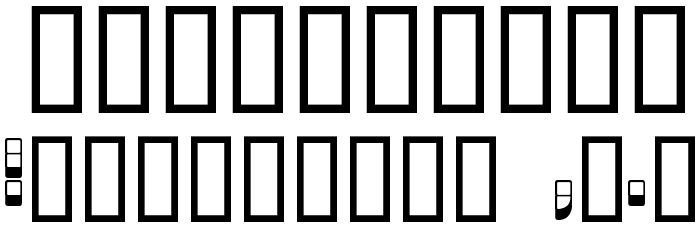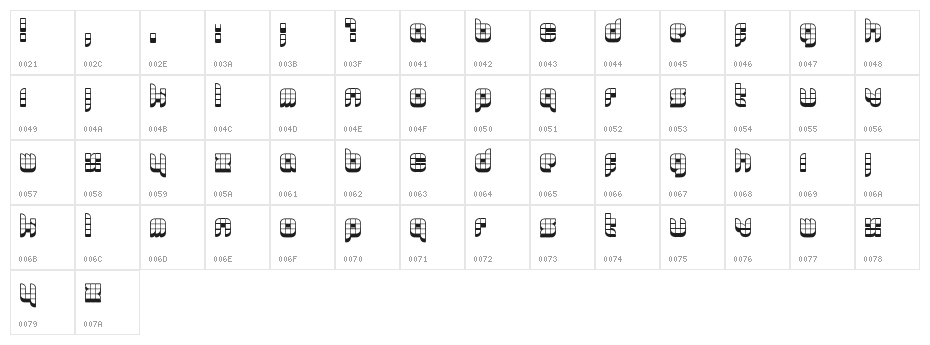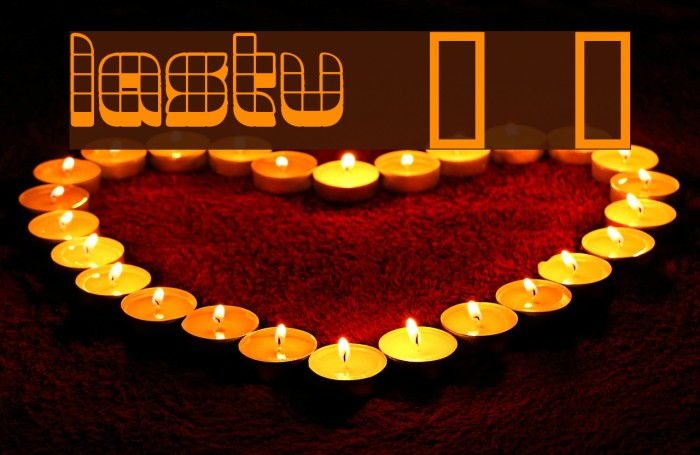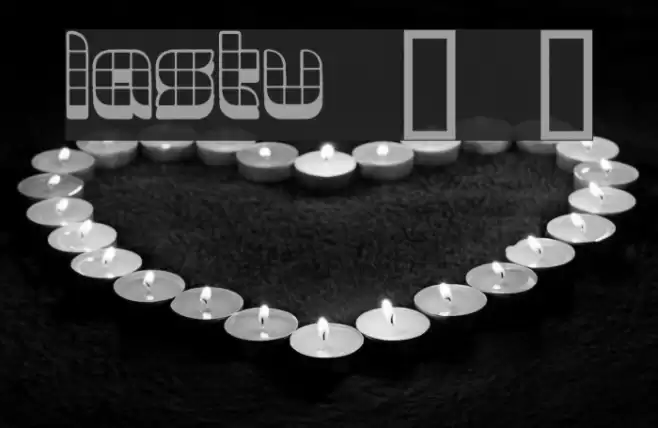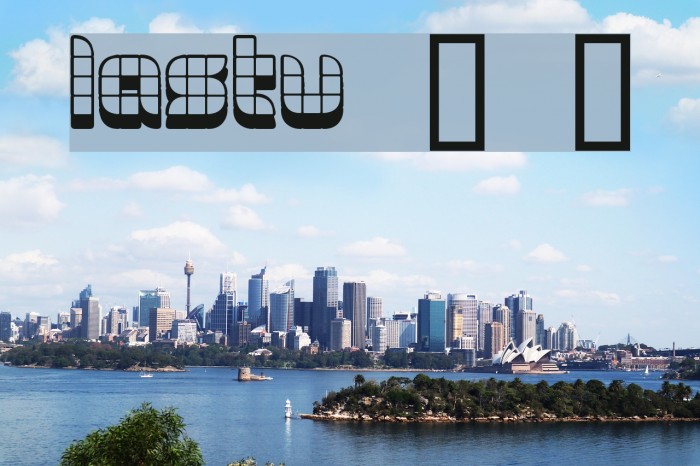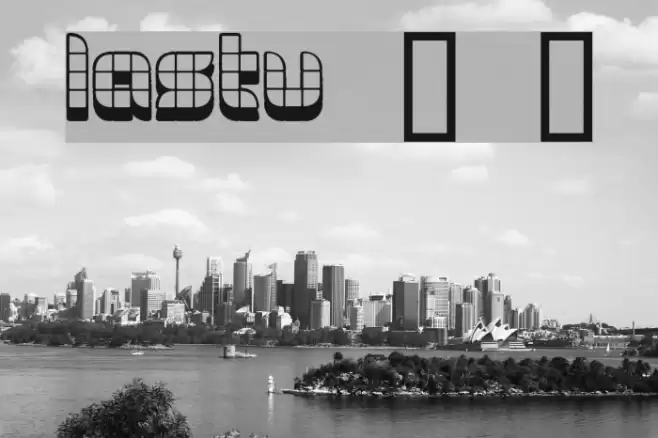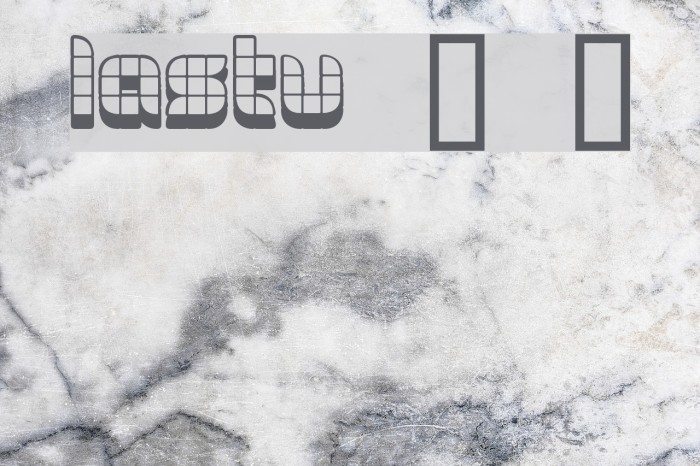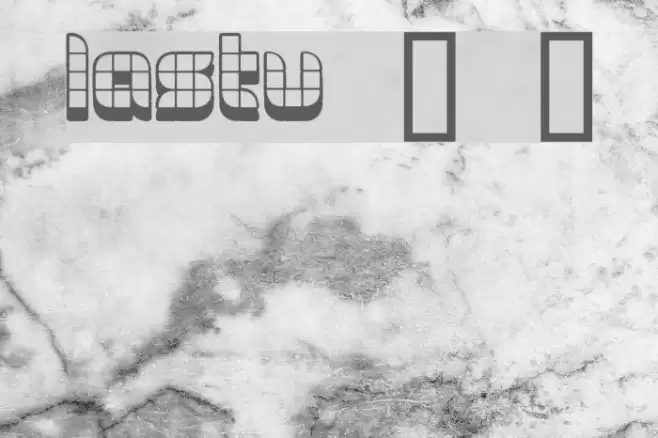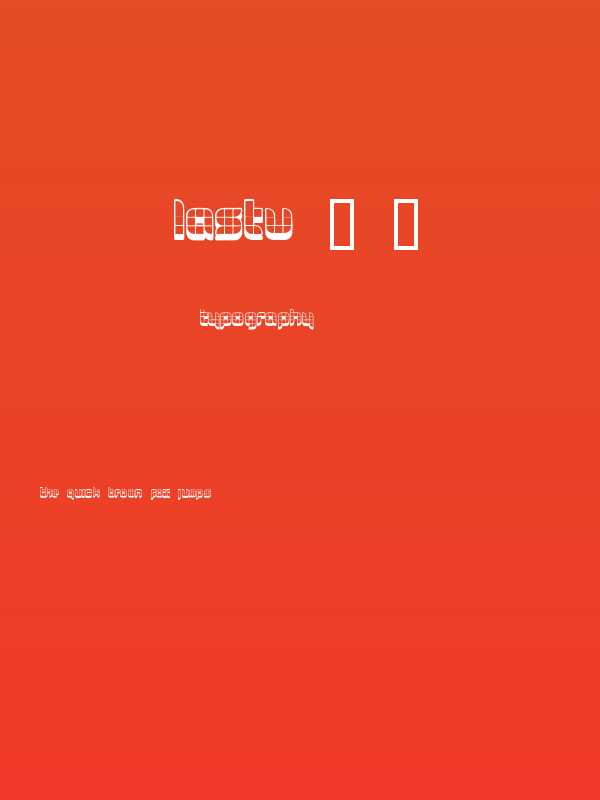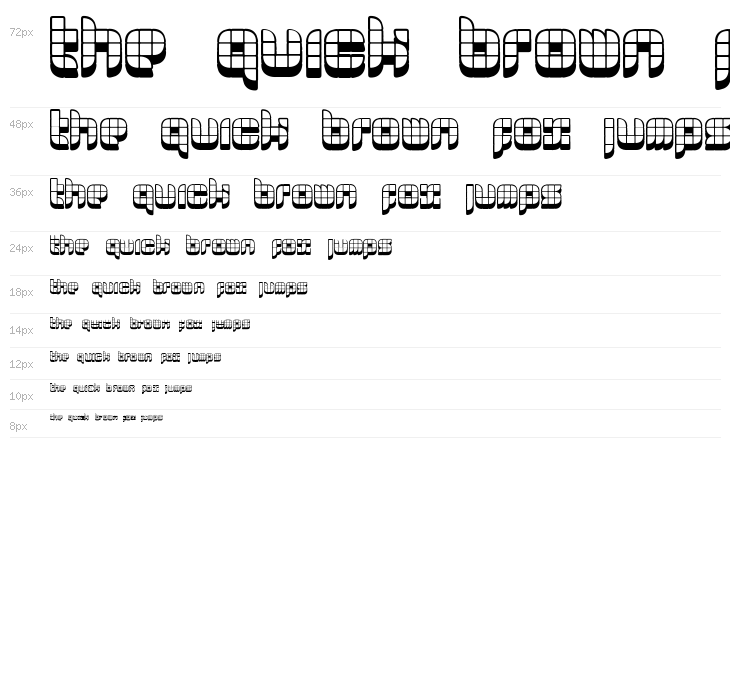
Lastu # 2 Font
Lastu # 2 Description
This font features a unique, grid-like pattern within each character, creating a futuristic and digital aesthetic. The letters are bold and rounded, with a consistent thickness throughout, giving them a strong presence. The grid pattern adds an element of complexity and texture, making the font stand out. The characters are evenly spaced, ensuring readability while maintaining a decorative appeal. This font is ideal for projects that require a modern and tech-inspired look, such as digital art, video game titles, or technology branding.
| Proposed Projects | Ideal for digital art, video game titles, technology branding, and modern posters. |